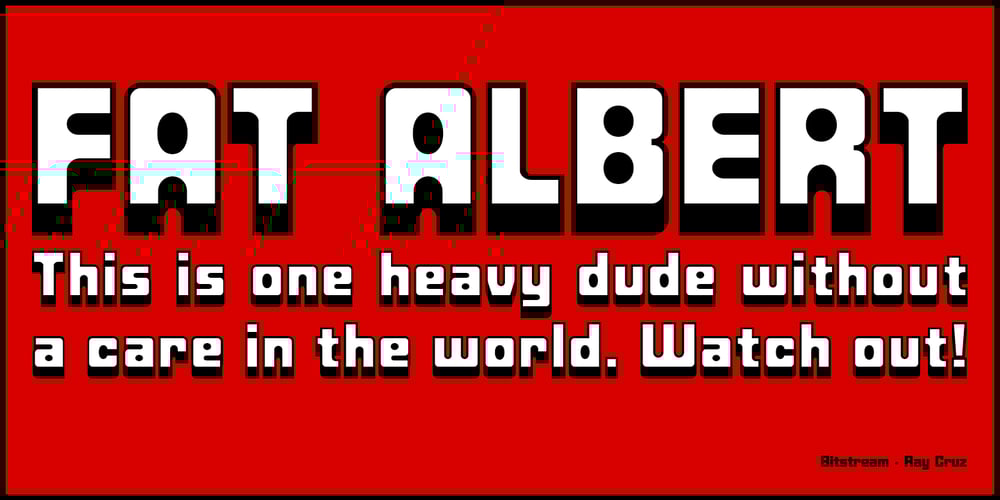
Fat Albert BT
Fat Albert BT font
Fat Albert BT Font Family was designed by Ray Cruz and published by Bitstream. Fat Albert BT contains 3 styles and family package options. Ray Cruz releases another typeface family, this time inspired by 1970’s pop culture. Fat Albert Regular, Outline and Shadow are bold poster types that evoke the fun and funk of an era gone by. Go on bro, get Fat Albert and get down.